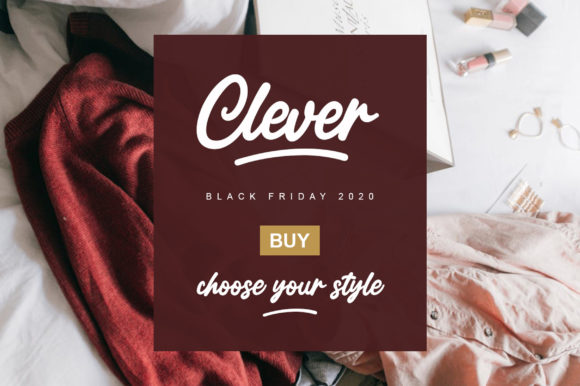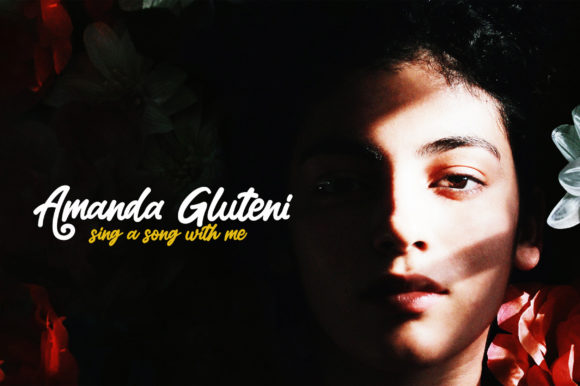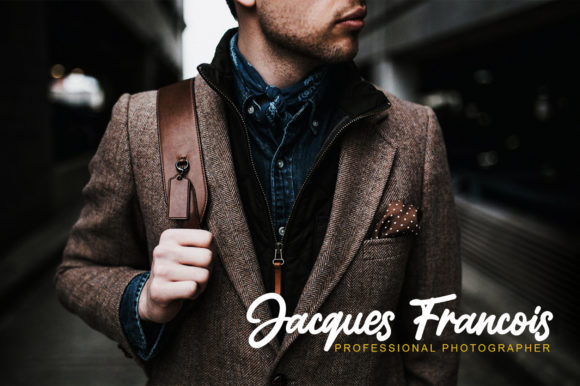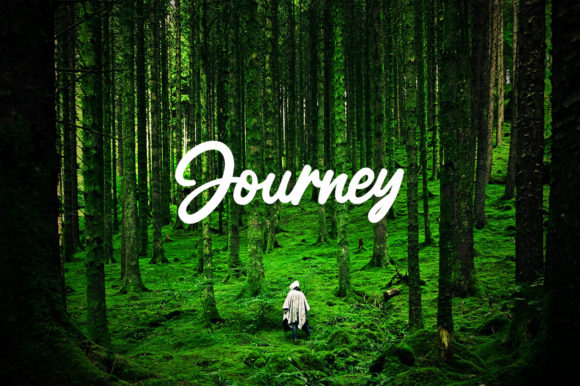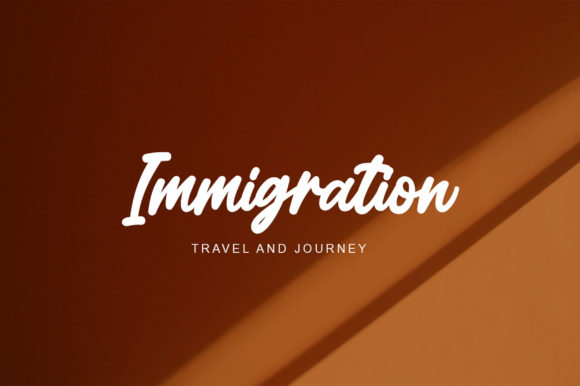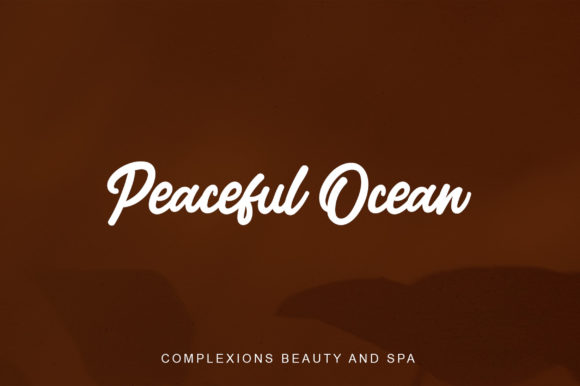
Introduction to Rockane Font
As a designer, there’s nothing quite like the thrill of seeing a project come together – the moment when all the elements align, and the design springs to life. But sometimes, it’s the smallest details that make all the difference. That’s where the Rockane Font comes in – a delicate, handwritten font that adds a touch of elegance to any creative project.
Whether you’re crafting a logo, branding, or a quote, the Rockane Font is the perfect choice to elevate your design. With its unique, beautiful touch, every letter seems to dance across the page, inviting the viewer to linger and appreciate the craftsmanship. And the best part? This high-quality font is available for free download, making it an invaluable resource for designers of all levels.
From transparent backgrounds to intricate typography, the Rockane Font is a versatile design resource that will help you create stunning visuals that capture attention and inspire emotion.
Key Features of Rockane Font
- Unique and Creative Design: Rockane Font is a high-quality design resource ideal for creative projects that require a unique and eye-catching font.
- Large Character Set: Rockane Font includes a large character set, including uppercase and lowercase letters, numbers, and punctuation marks.
- Perfect for Creative Projects: Rockane Font is a versatile design resource that can be used in a variety of creative projects, from branding and logos to digital art and graphics.
Honest Review: Rockane Font
I recently had the opportunity to work with the Rockane Font, and I must say it’s been a game-changer for my creative projects. As a designer, I’m always on the lookout for high-quality design resources that can elevate my work and make it stand out.
The Rockane Font is a beautifully crafted typeface that’s perfect for any creative project. Its unique style and versatility make it an excellent choice for logos, branding, and even web design. One of the best things about this font is its transparent background, which allows for seamless integration with any design element.
Here are some of the things that work well with the Rockane Font:
- ✨ High-quality design: The font is crisp and clean, making it perfect for printing or digital use.
- ✨ Versatile style: The Rockane Font can be used for a wide range of creative projects, from logos to branding materials.
- ⚠️ Limited character set: The Rockane Font only includes a limited character set, which may not be suitable for all design projects.
- ⚠️ Not ideal for small text: Due to its unique style, the Rockane Font may not be the best choice for small text or body copy.
Overall, I’m impressed with the Rockane Font and would definitely recommend it to fellow designers. With its high-quality design and versatility, it’s an excellent choice for any creative project. Just be aware of its limitations, and you’ll be all set to create stunning designs with this font.
Tips for Getting the Most Out of Rockane Font
For the best results, use Rockane Font on a high-quality design resource with a transparent background. This will help maintain the font’s clarity and readability. You can also experiment with different font sizes and styles to create a unique look for your creative project.